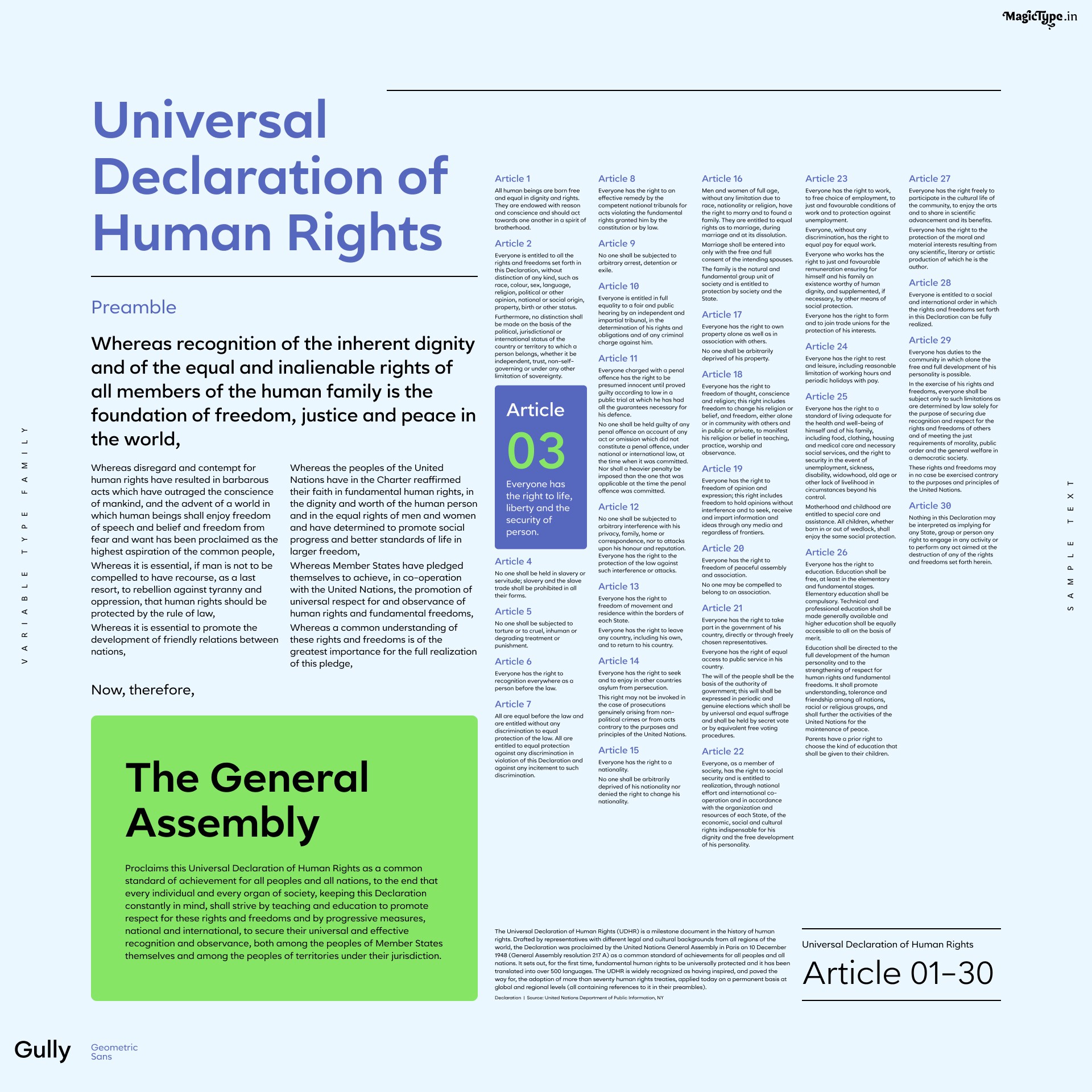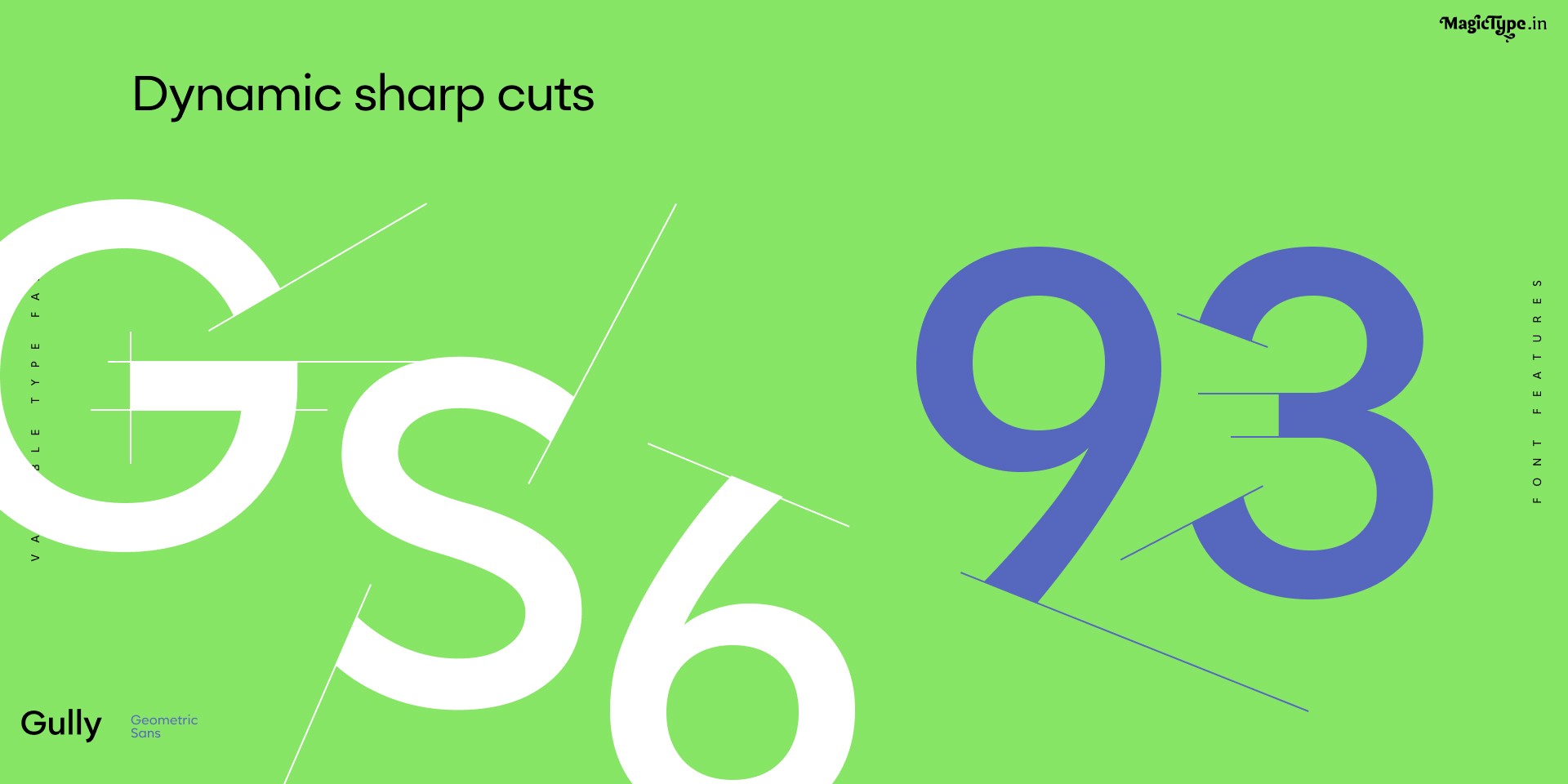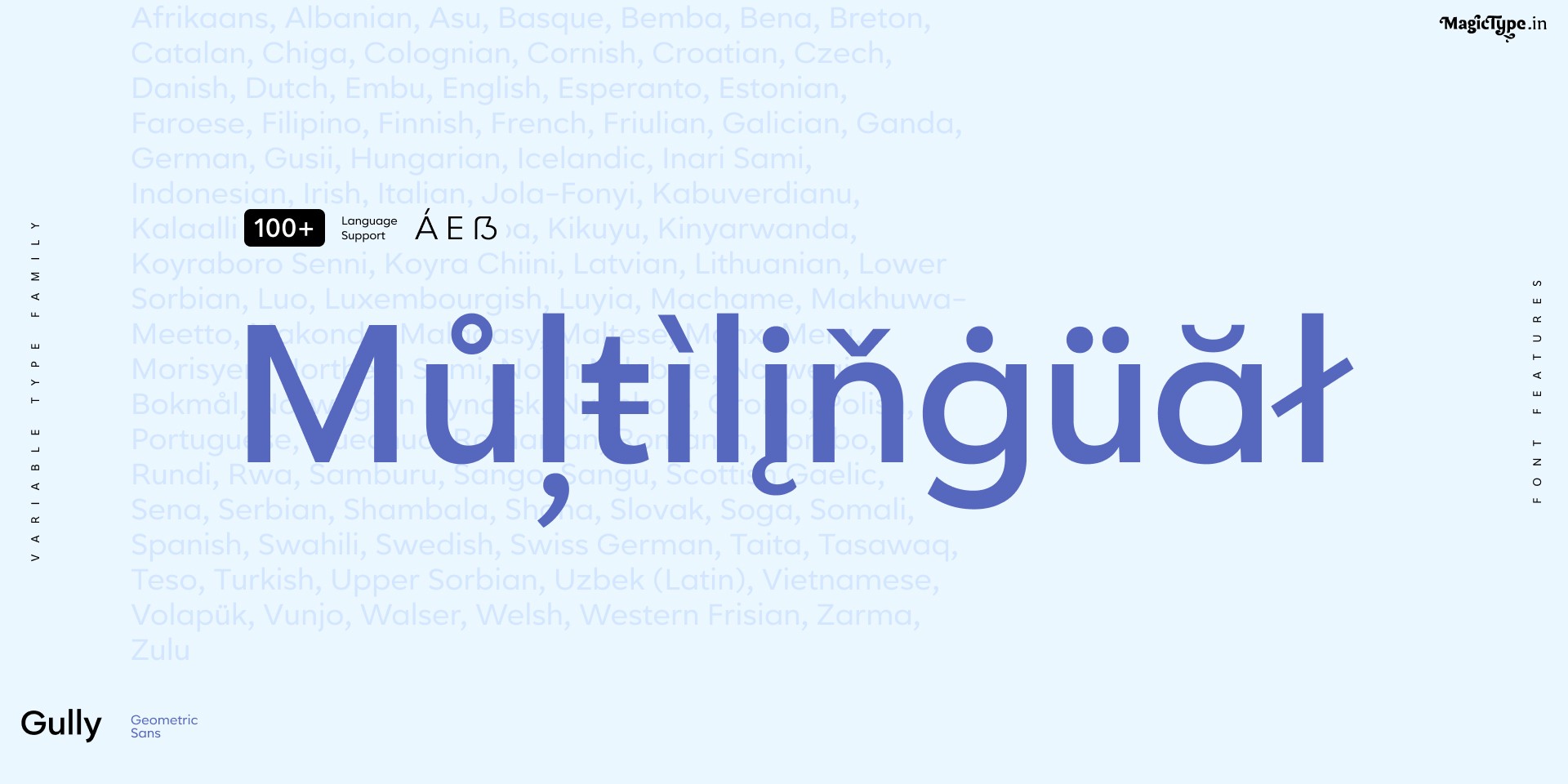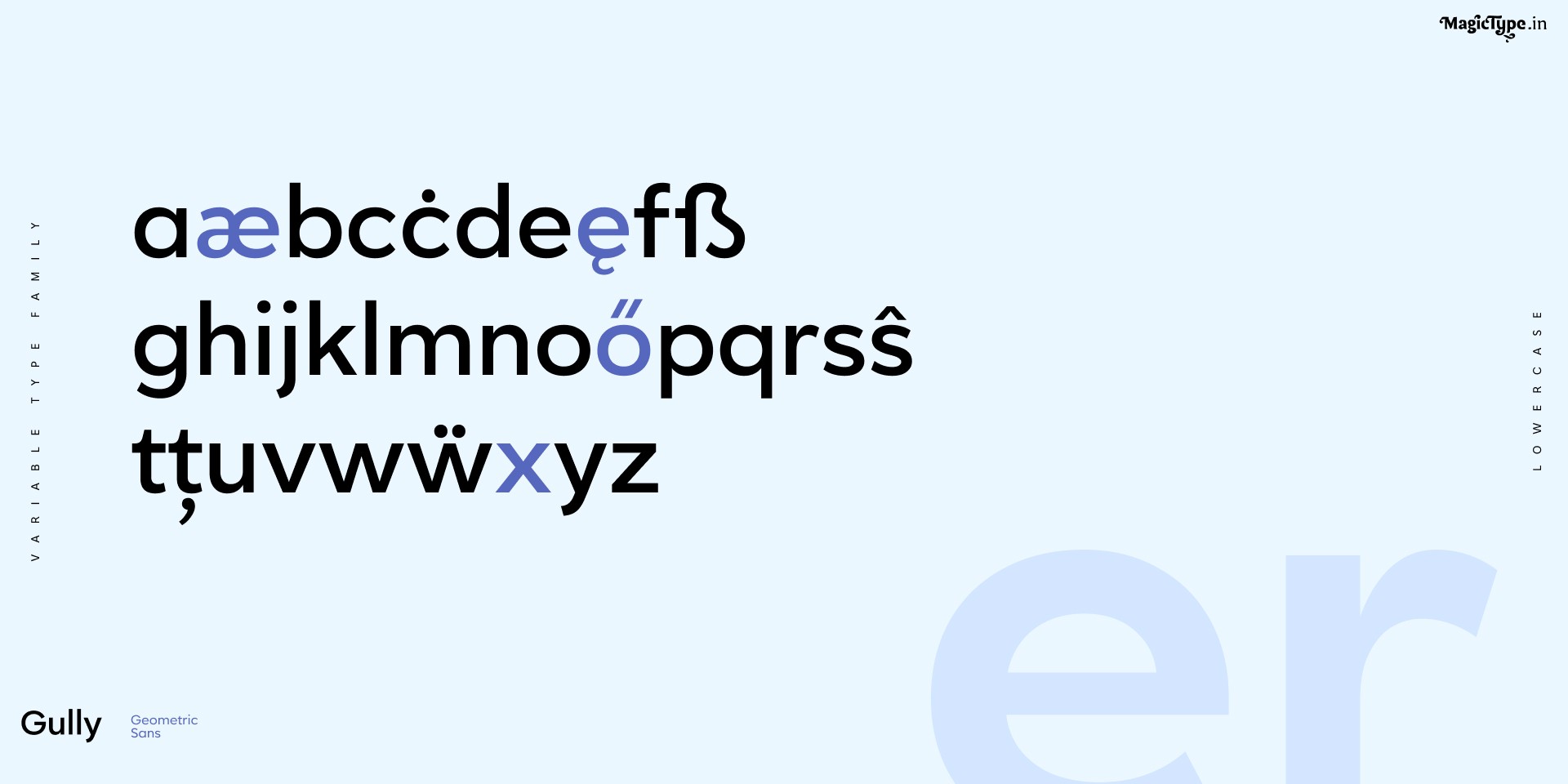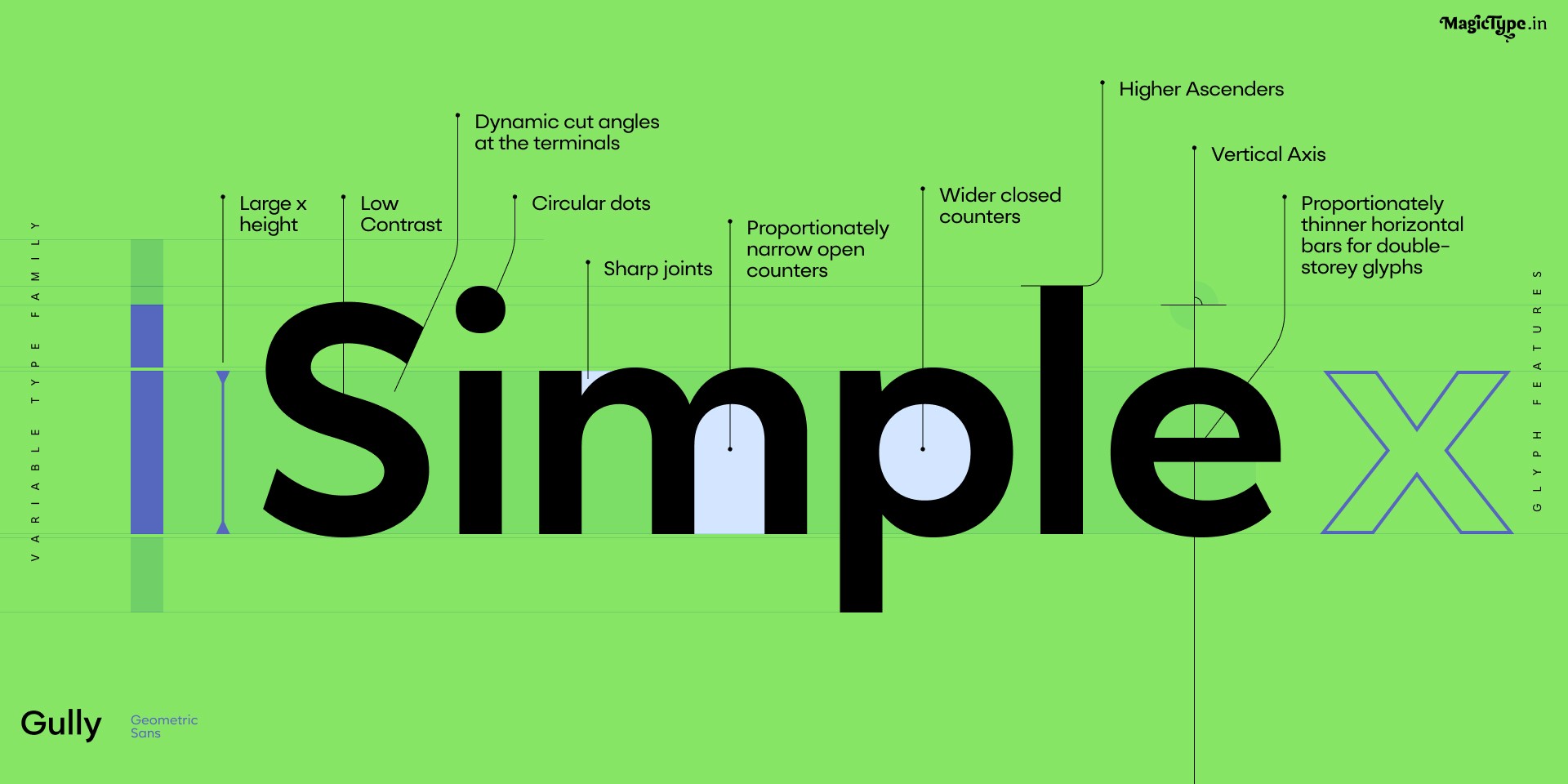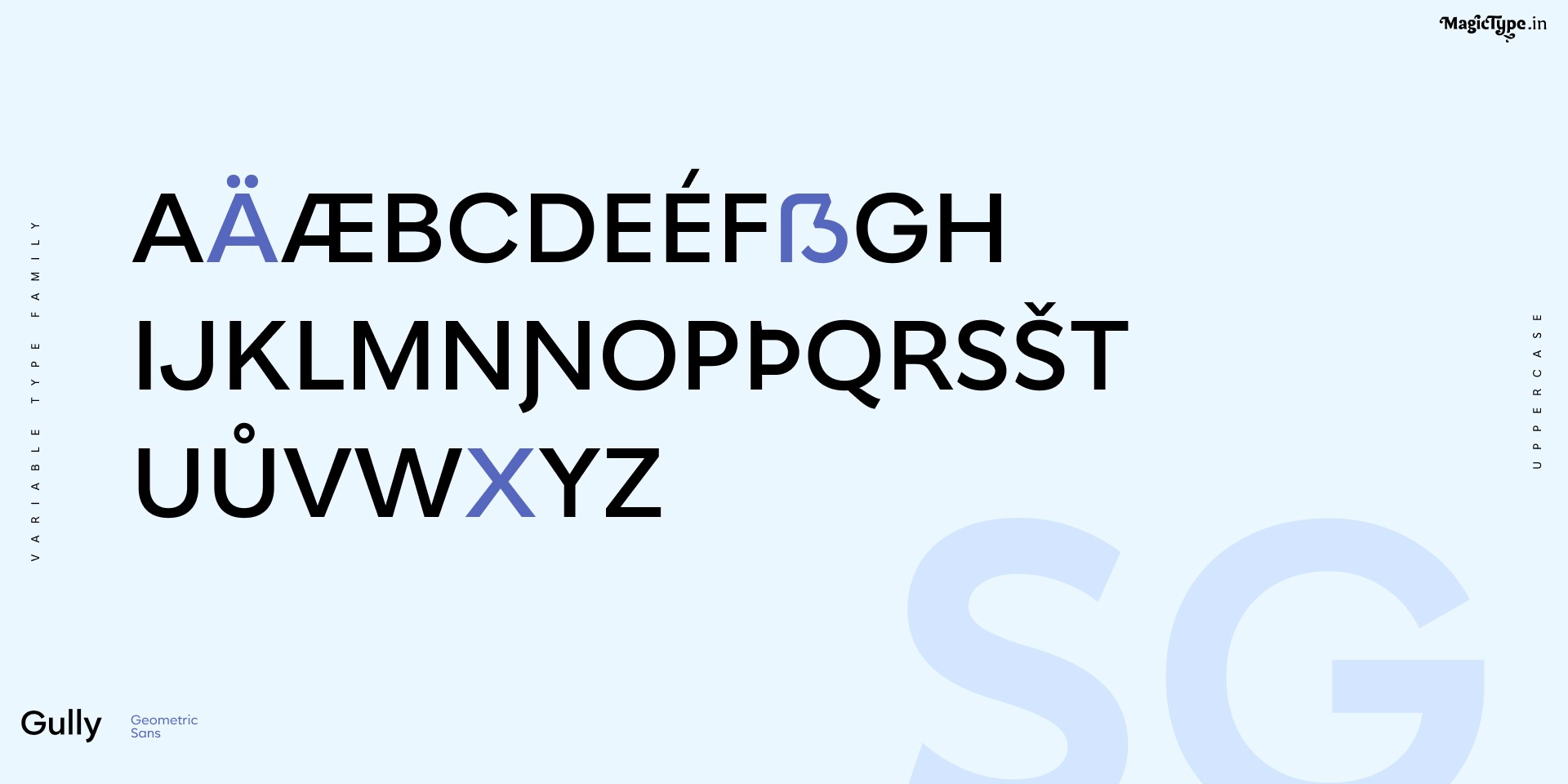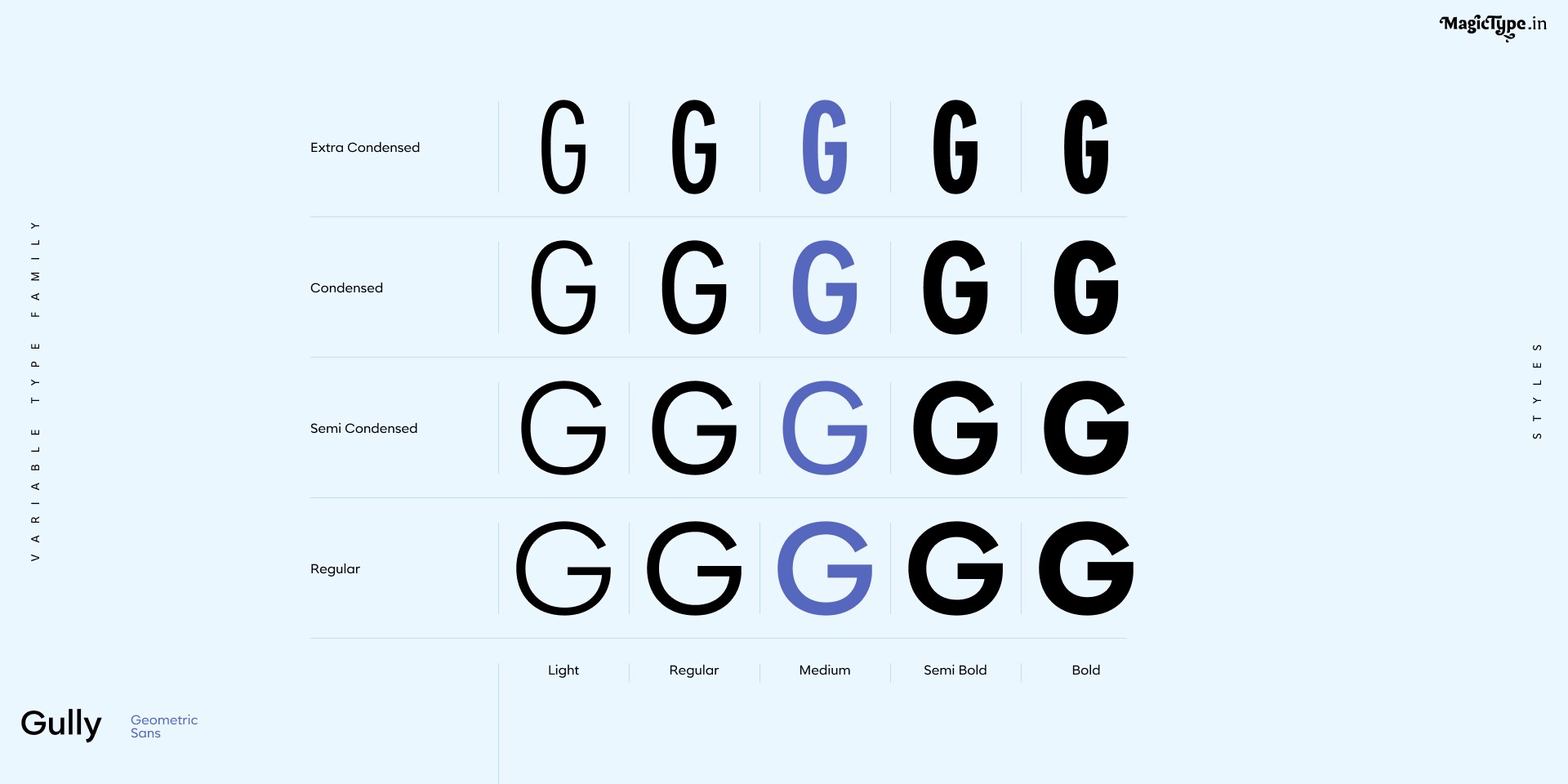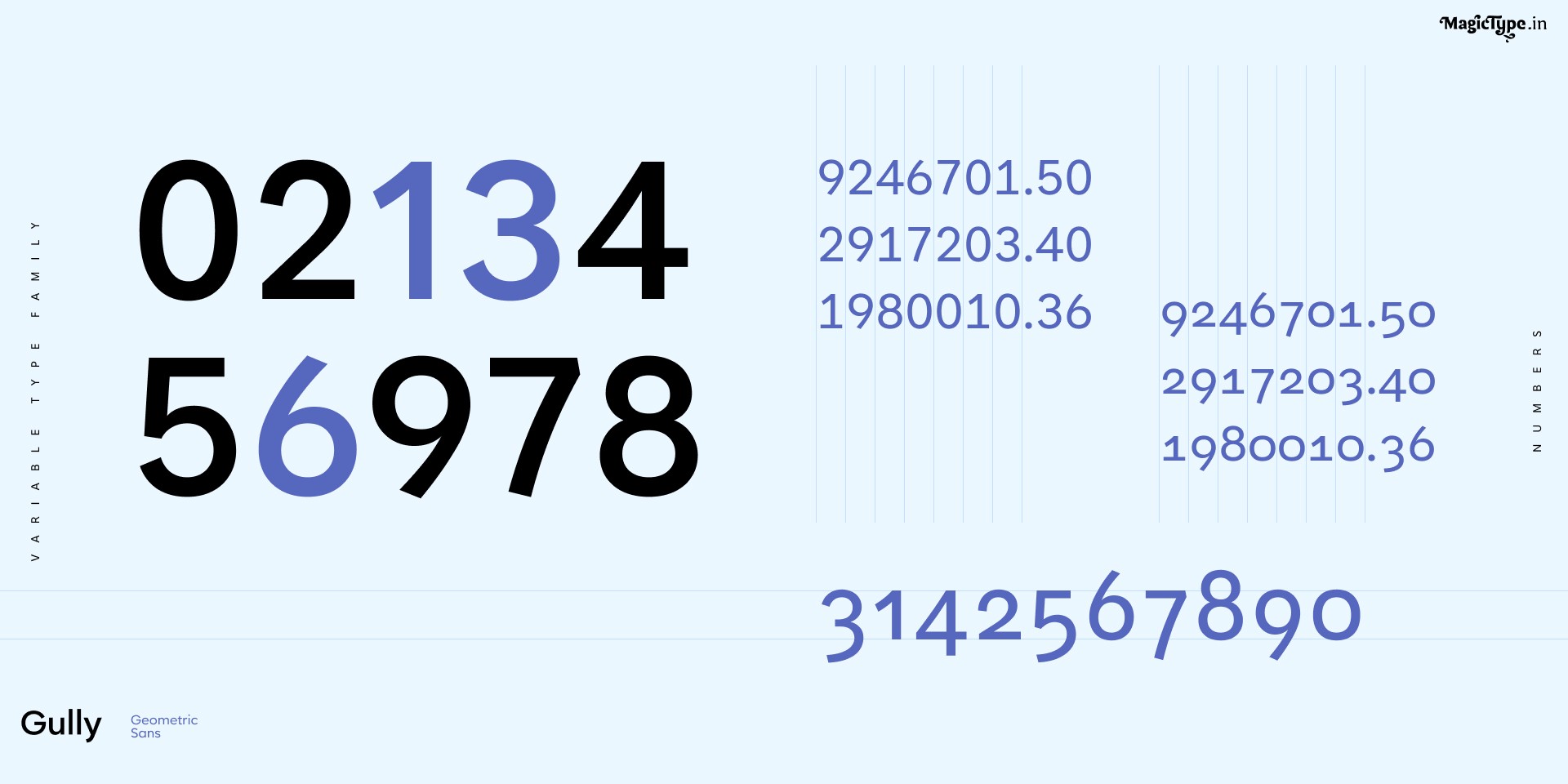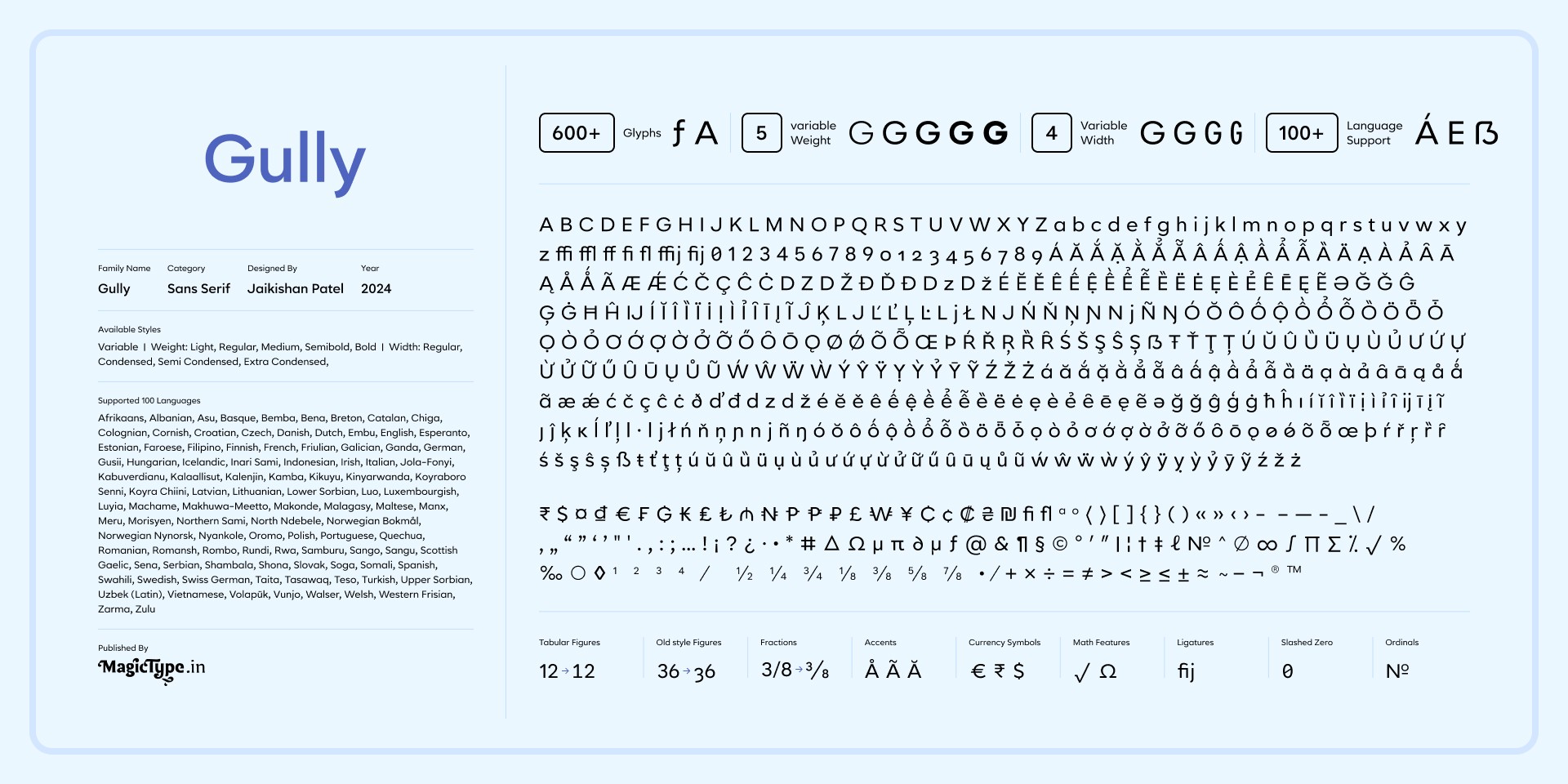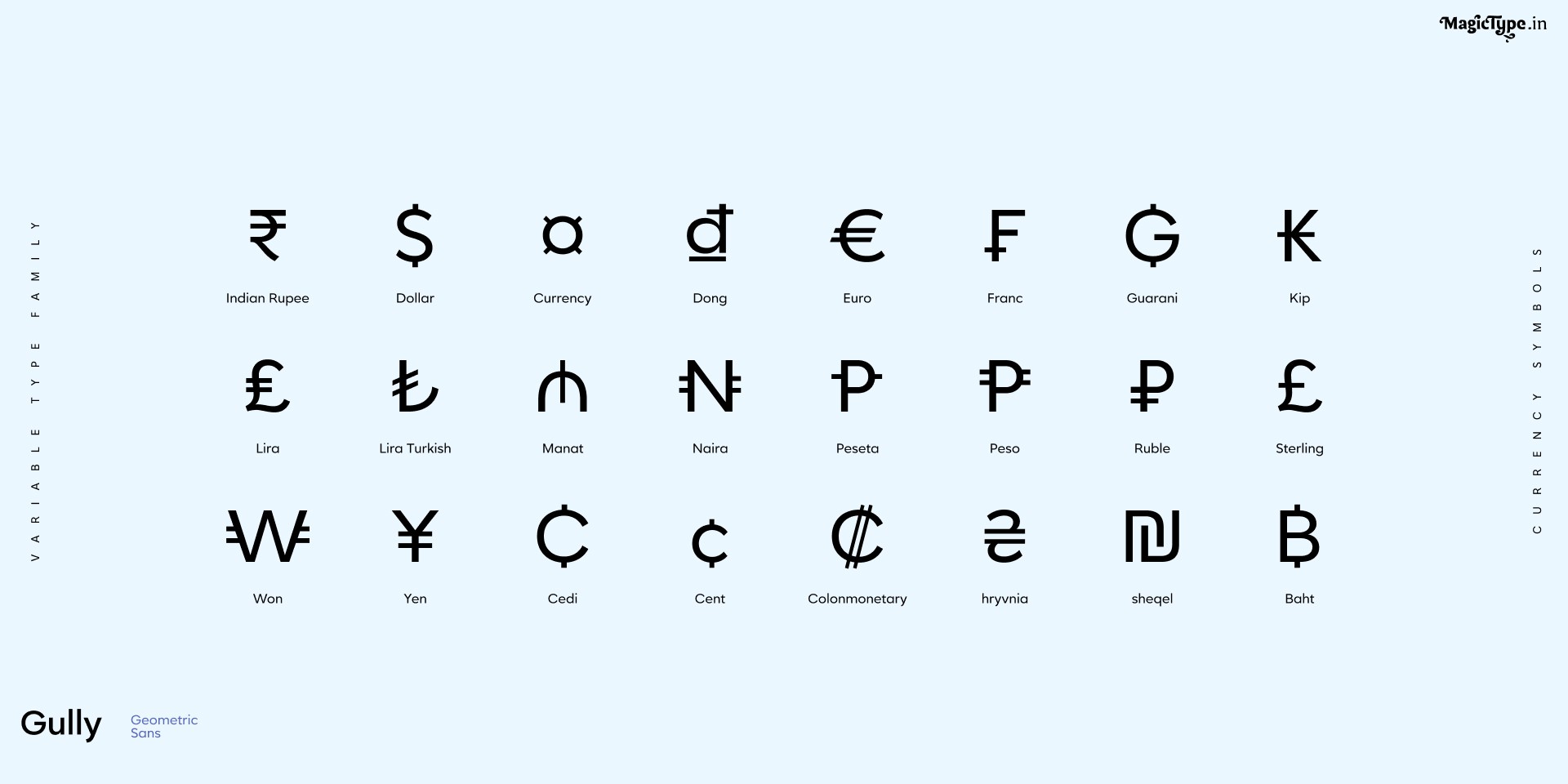
Gully Sans
Scripts: Latin | classification: Mono-linear Sans serif | Genre: Modern, Geometric | Designed by Jaikishan Patel
A clean, geometric typeface.
Gully is a low-contrast geometric type family. Glyphs have large x-height, higher ascenders than the cap height, dynamically angled sharp cuts at the terminals and optically corrected geometric closed counters. The typeface is versatile in terms of uses. The proportions are suitable for both; display and body type.
The Type Family
The font family has a variable weight, with 5 predefined weights; light, regular, medium, semibold, and bold. It also has a variable width, with 4 predefined widths; regular, condensed, semi condensed, extra condensed. It features over 600 precisely crafted glyphs, with standard and discretionary ligatures, mathematical features, currency symbols, ordinals, fractions, accents, lining figures, tabular figures, alternative glyphs, and other OpenType features. Currently, the type family has extensive language support for over 100 languages based on Latin.